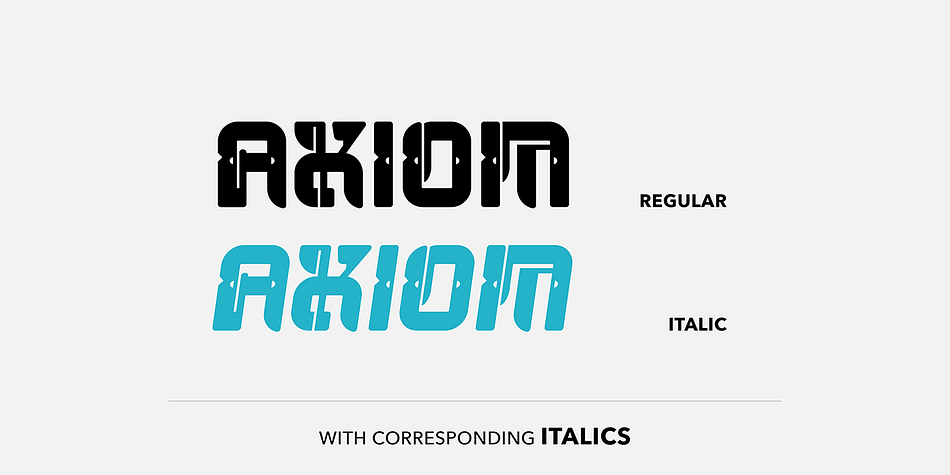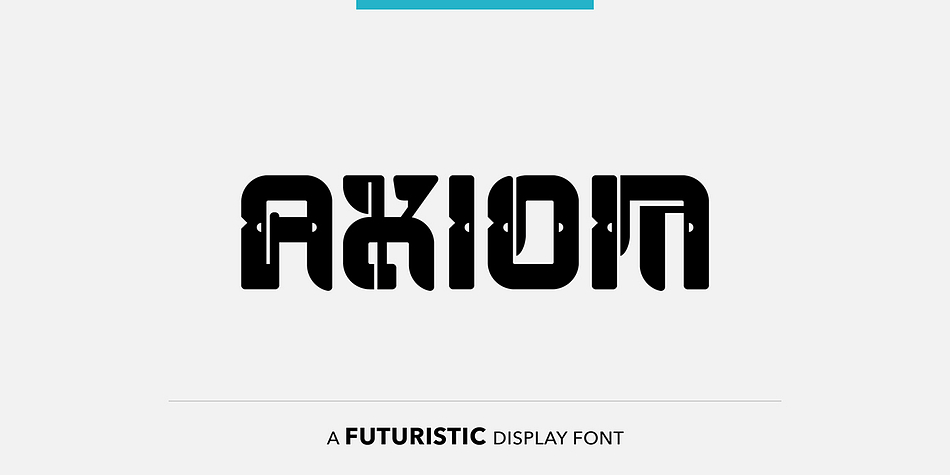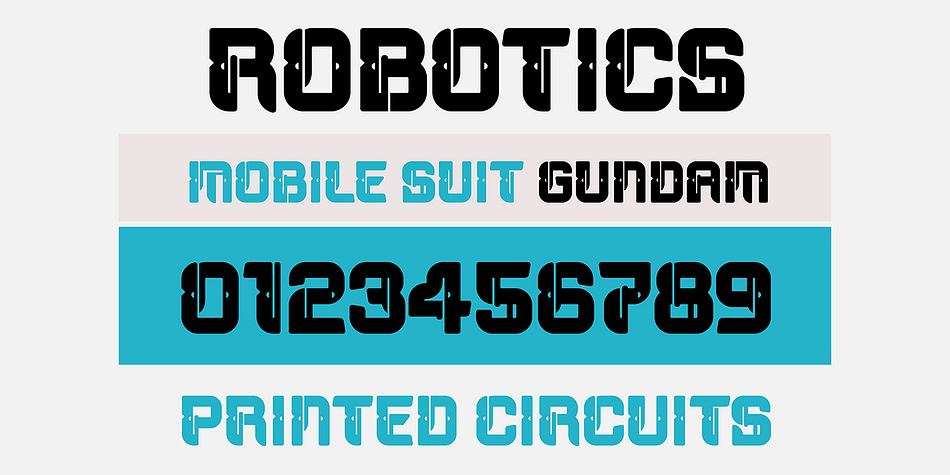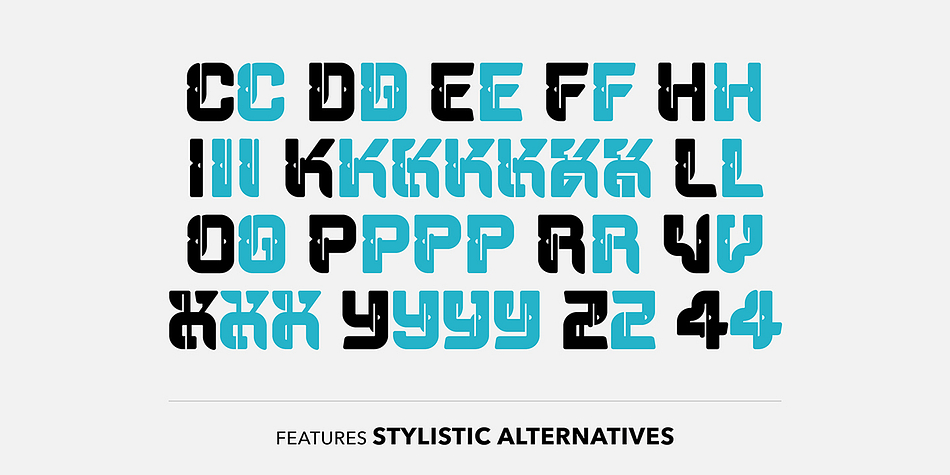
Designed by Craig Stainton, SB Axiom is a display and display sans font family. This typeface has two styles and was published by SelfBuild Type Foundry.
SB Axiom is an futurisic display font.
• Lots of stylistic alternatives.
Styles | Display, Display Sans |
Designer | Craig Stainton |